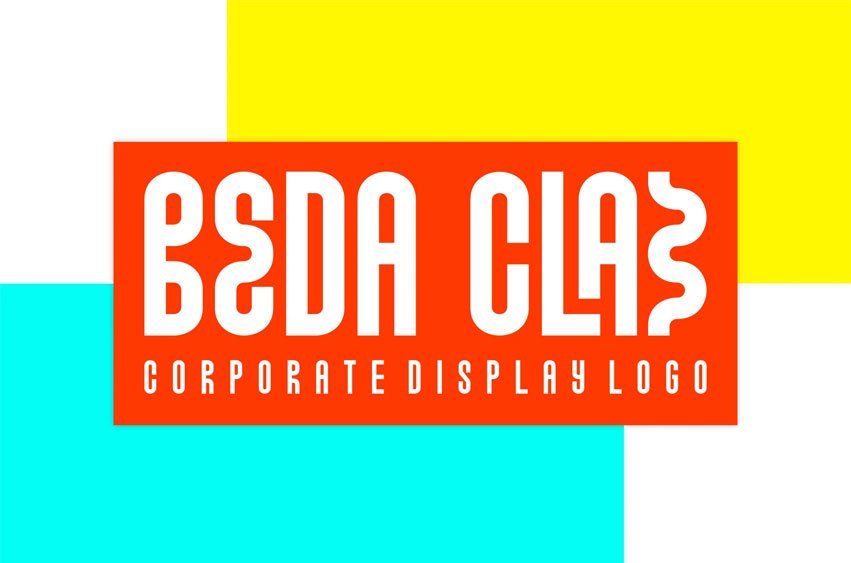
Beda Class Font
Beda Class Font Corporate Display Logo regular and authentic display font. The font is suitable for any branding project like logo, esport, and many more.
Outstanding in a wide range of contexts.